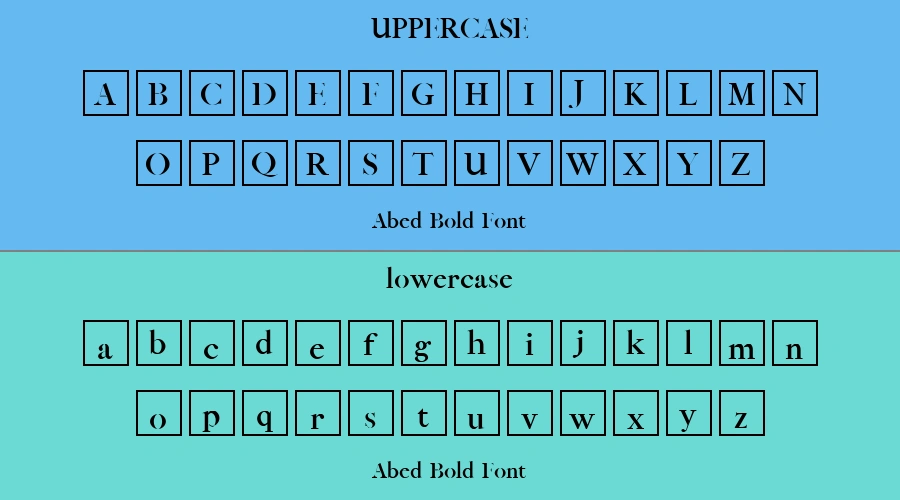
Abed Bold Font embodies typographic excellence through its masterful combination of ball terminals and visual appeal. Created for billboard design, this typeface delivers exceptional versatility and technical sophistication across all applications. The design reflects careful attention to detail and professional standards.
Advanced capabilities include distinctive clean lines and versatile small caps, giving designers creative control. When used in data tables, Abed Bold Font exhibits remarkable small text clarity. The harmonious balance between serif length and artistic merit sets this typeface apart.